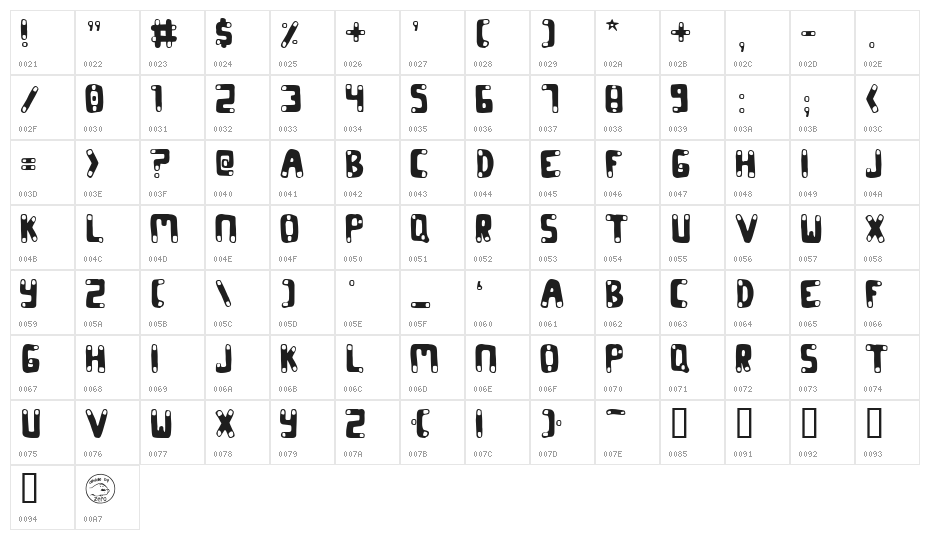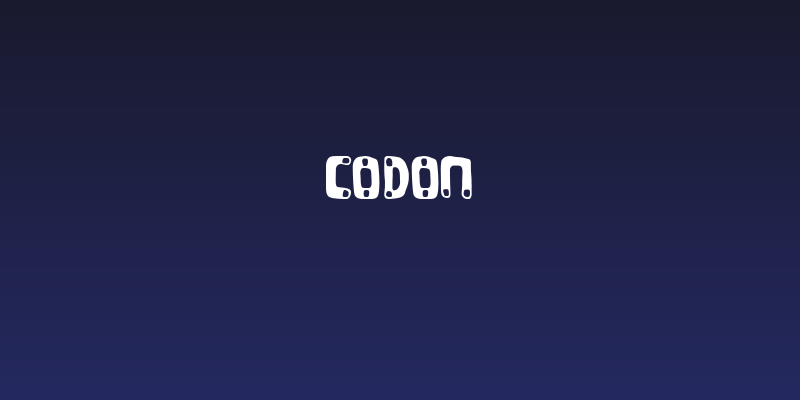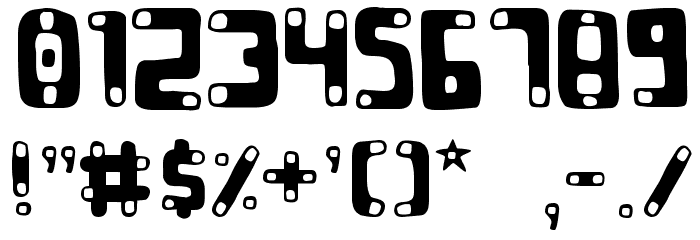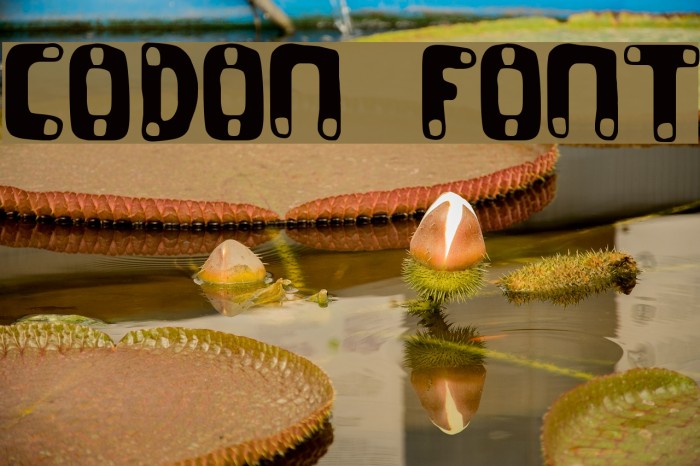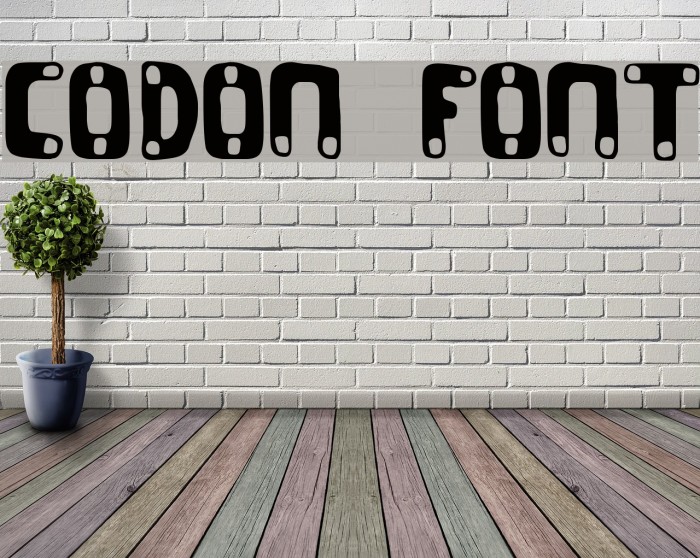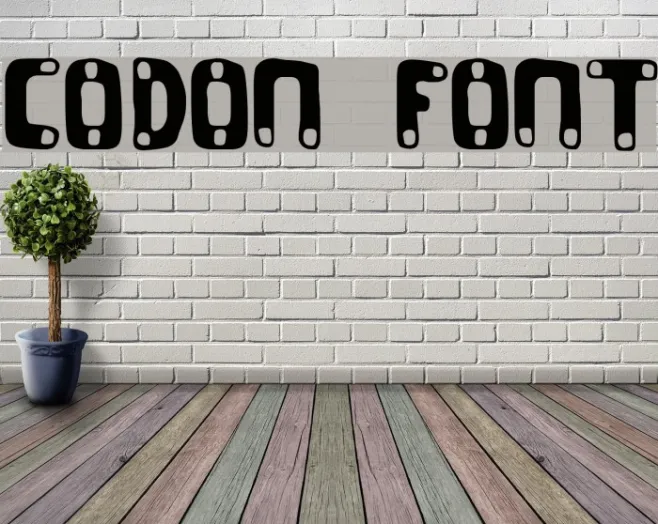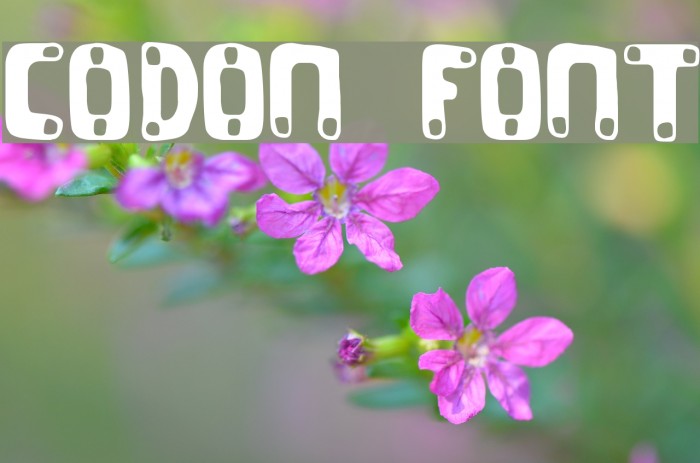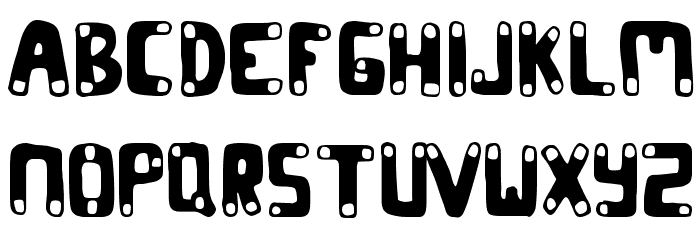
CODON Font
CODON Description
This font features a bold and playful design with rounded edges and a unique, futuristic aesthetic. Each character is outlined with a thick stroke, giving it a strong presence. The letters are slightly condensed, with circular cutouts that add a distinctive, modern touch. The font maintains a consistent weight throughout, making it suitable for eye-catching designs. Its quirky style is perfect for projects that require a fun and engaging look, such as children's books, posters, or branding for creative industries.
| Proposed Projects | Children's books, posters, branding for creative industries, playful packaging. |